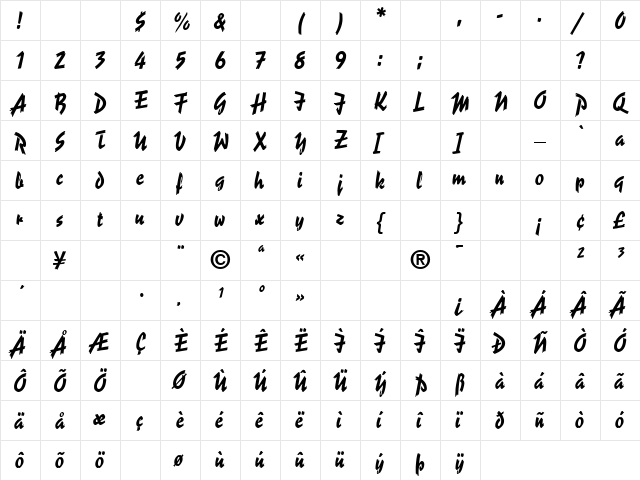
Reporter Two
Design Context for Reporter Typeface
Reporter is a composed and adaptable typeface that performs quietly and consistently across a wide range of design contexts.